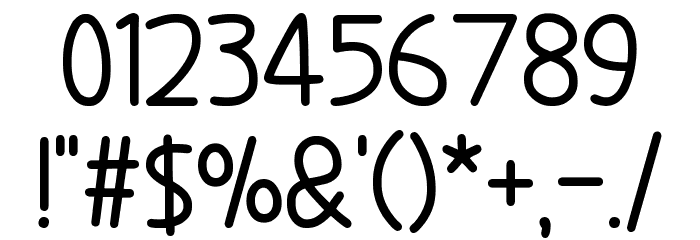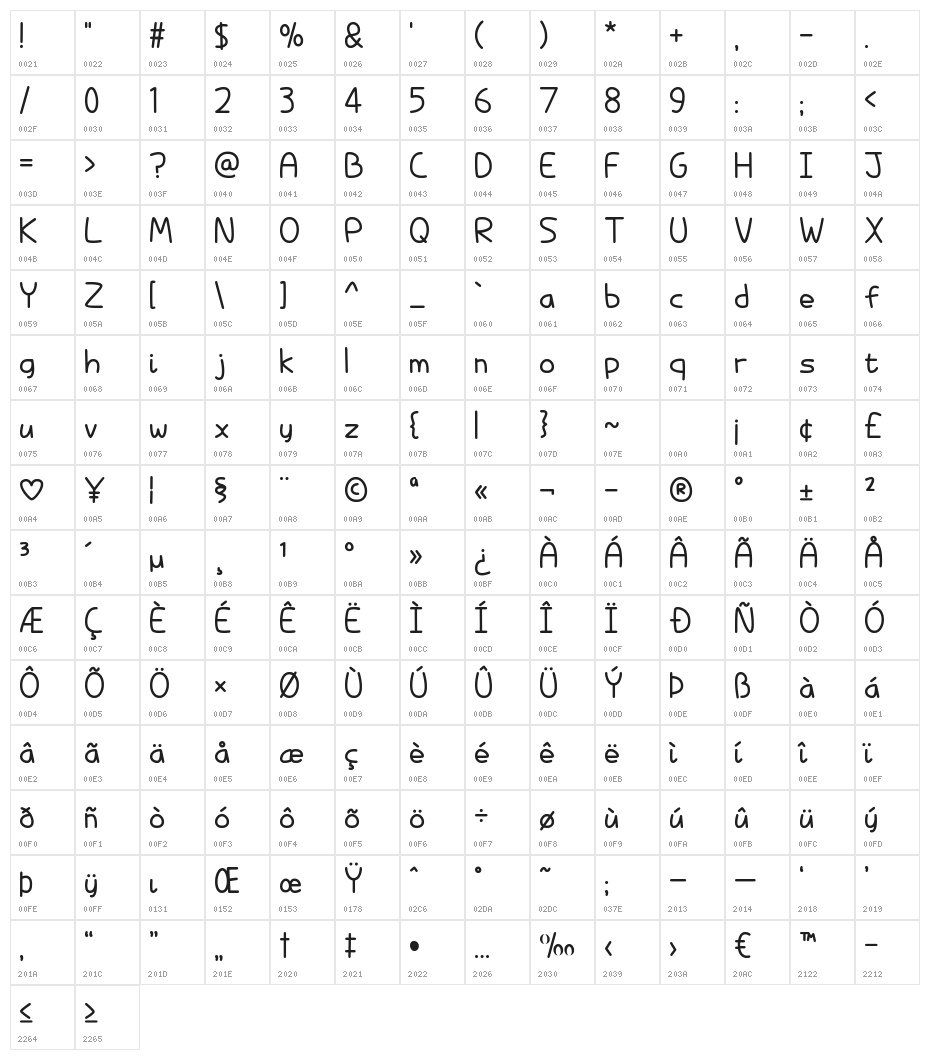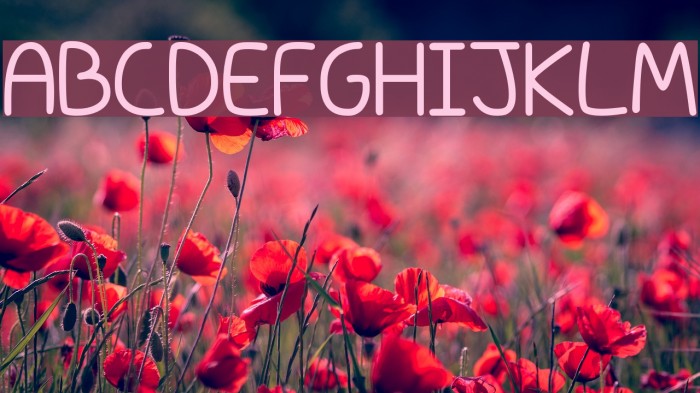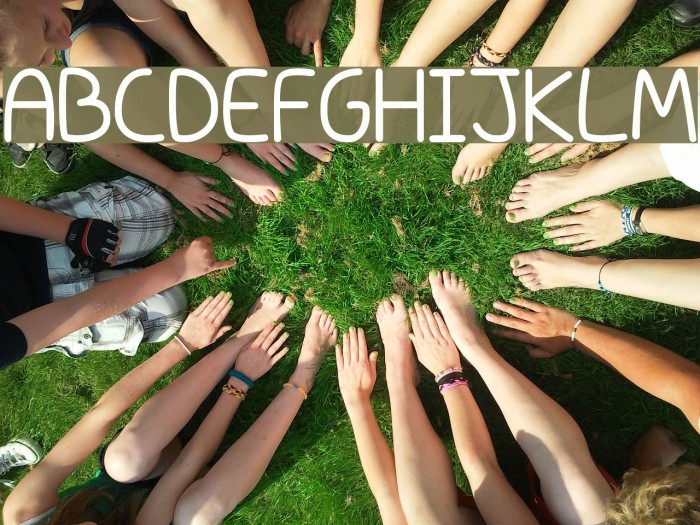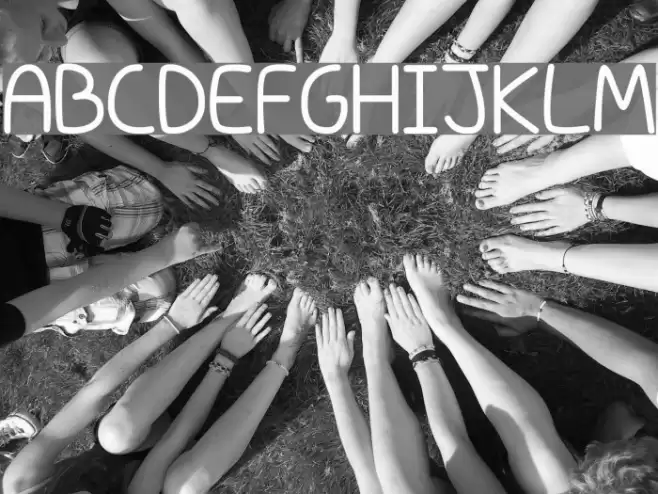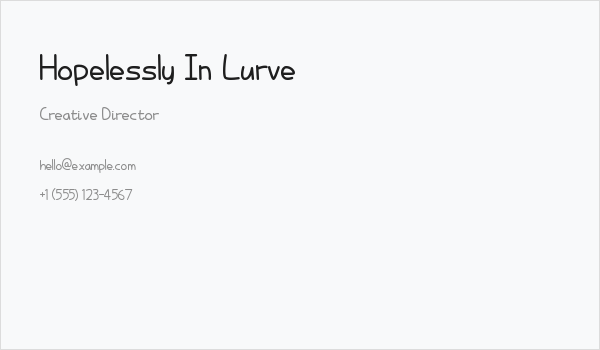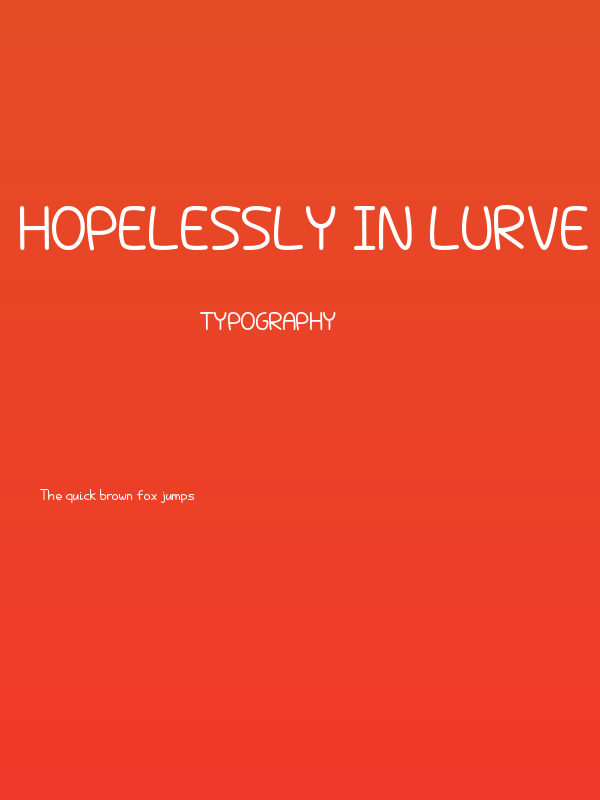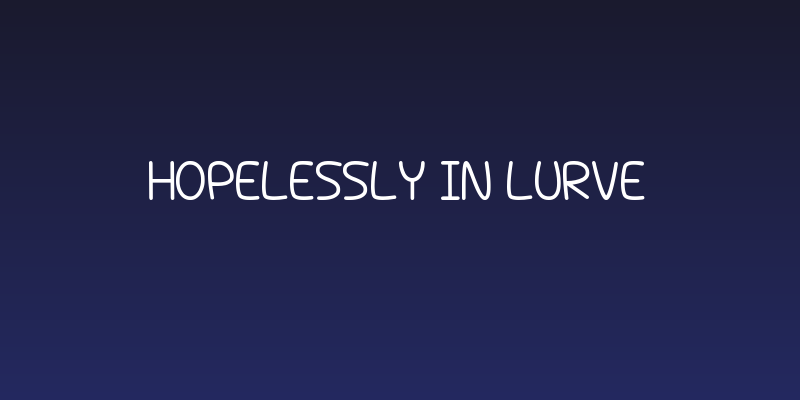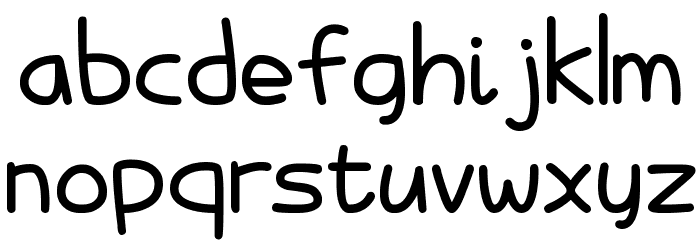
Hopelessly In Lurve Font
Hopelessly In Lurve Description
This playful and whimsical font features rounded, smooth edges with a casual, handwritten style. The characters are evenly spaced, giving a relaxed and friendly appearance. The uppercase and lowercase letters maintain a consistent flow, with slightly exaggerated curves that add to its charm. Numbers and special characters are designed with the same playful touch, making them easily readable and visually appealing. This font exudes a sense of fun and creativity, perfect for projects that require a lighthearted and approachable feel.
| Proposed Projects | Ideal for children's books, greeting cards, playful branding, and casual invitations. |